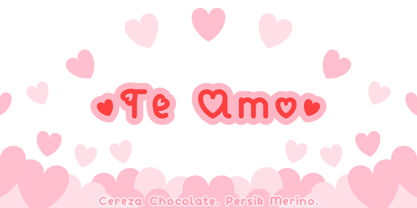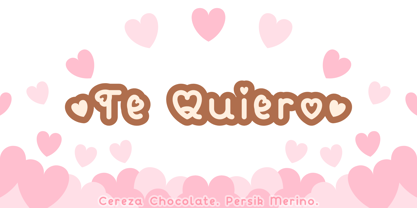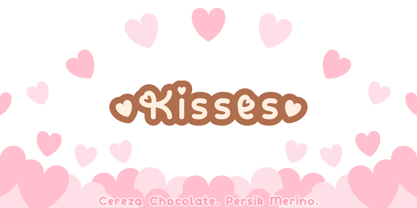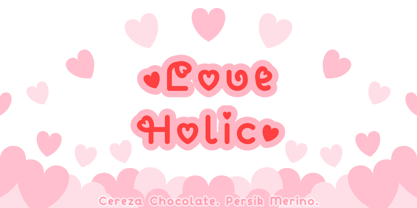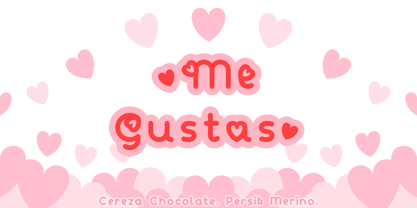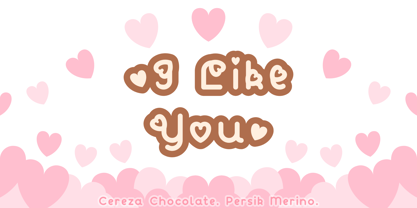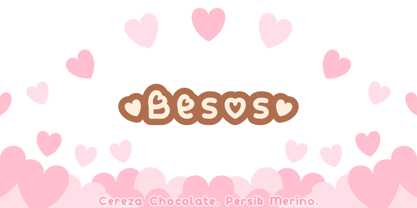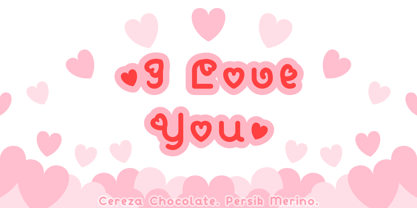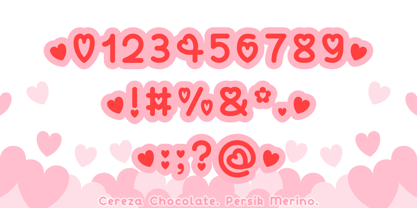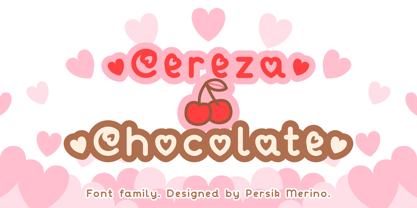
Cereza Chocolate
by Persik Merino Arte
The Cereza Chocolate Font Family was designed by Persik Merino and published by Persik Merino Arte. Cereza Chocolate contains 3 styles and family package options. More about this family
Cereza Chocolate means “cherry chocolate” in Spanish. Cereza Chocolate is a cute heart font family, with many heart decorations, with careful strokes, and with a handwritten disconnected style.
Cereza Chocolate supports various Latin script languages. It has an extended collection of characters, including math signs, currency symbols, and heart and star ornaments. It also has stylistic sets with alternative glyphs.
Cereza Chocolate 1 is a heart font with heart decorations on every capital letter of every supported language.
Cereza Chocolate 2 is a heart font with some heart decorations.
Cereza Chocolate 3 is a simple font with a handwritten disconnected style. It matches the font family.